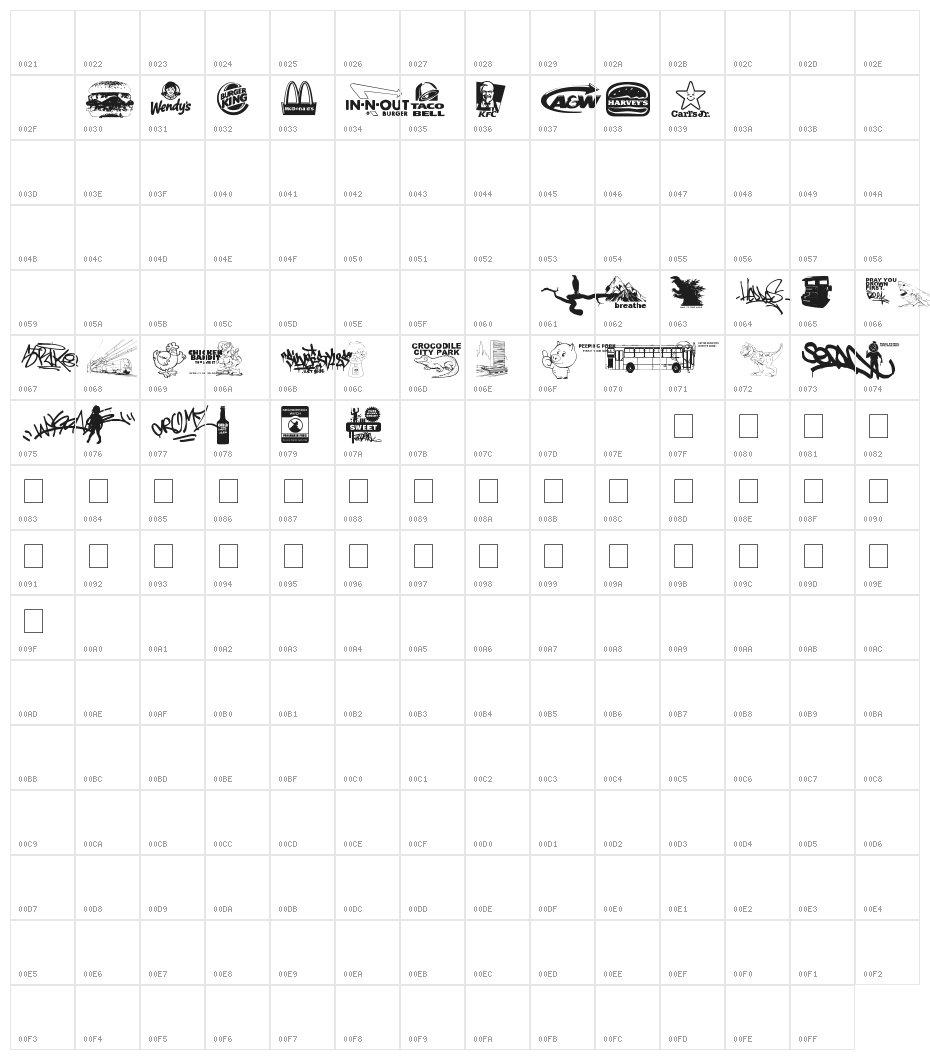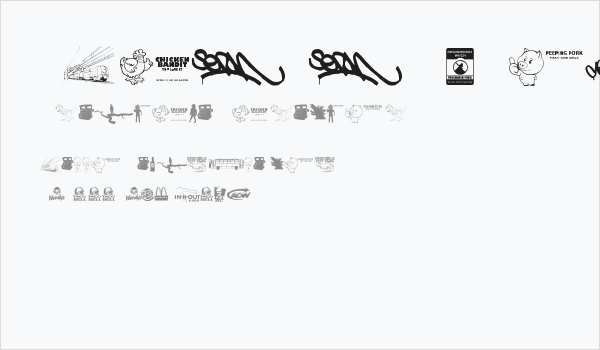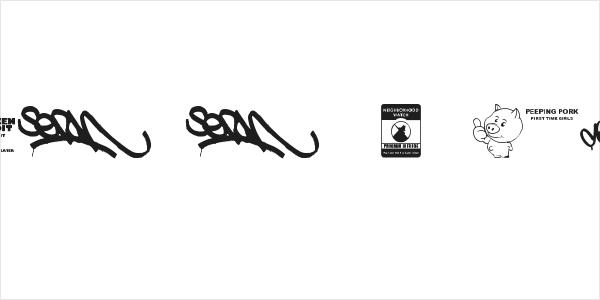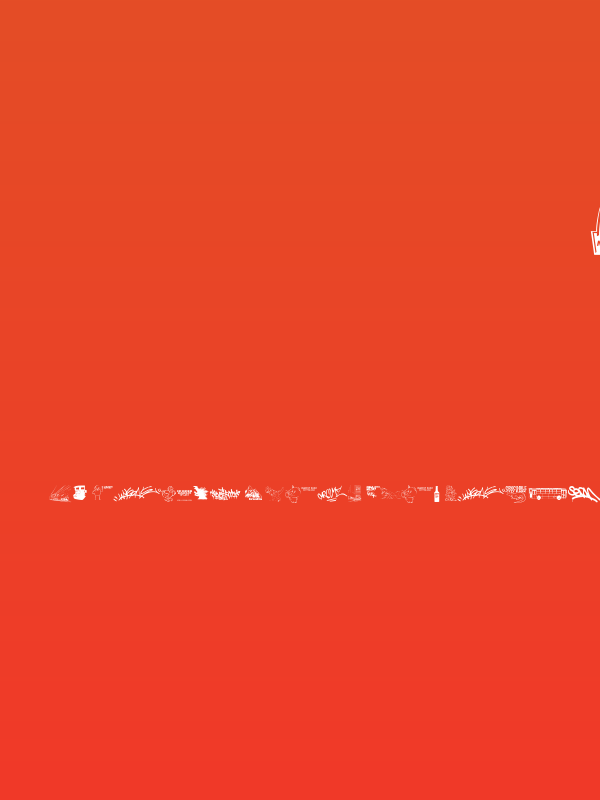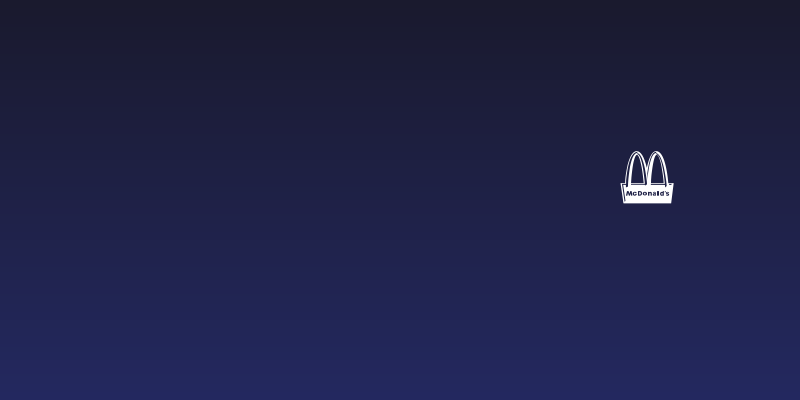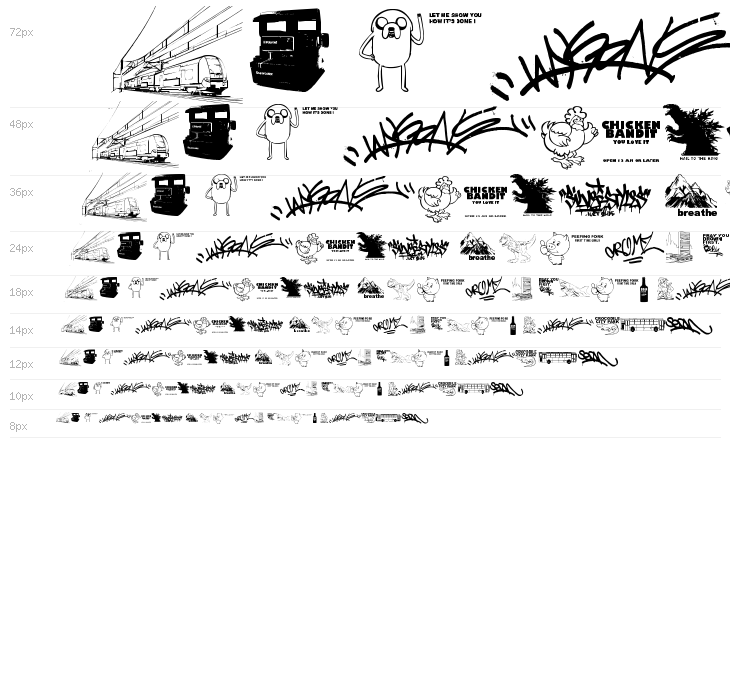
This Is My Town 3 Font
This Is My Town 3 Description
A highly decorative and illustrative font composed of urban-themed doodles, graffiti tags, fast food logos, and city-related sketches, each glyph representing a unique image rather than a traditional letterform.
| Overall Style | Decorative, Urban, Playful |
| Use Case | Logos, Posters, Decorative elements |
| Proposed Projects | Street art posters, urban event flyers, youth culture branding, zines, creative social media graphics. |